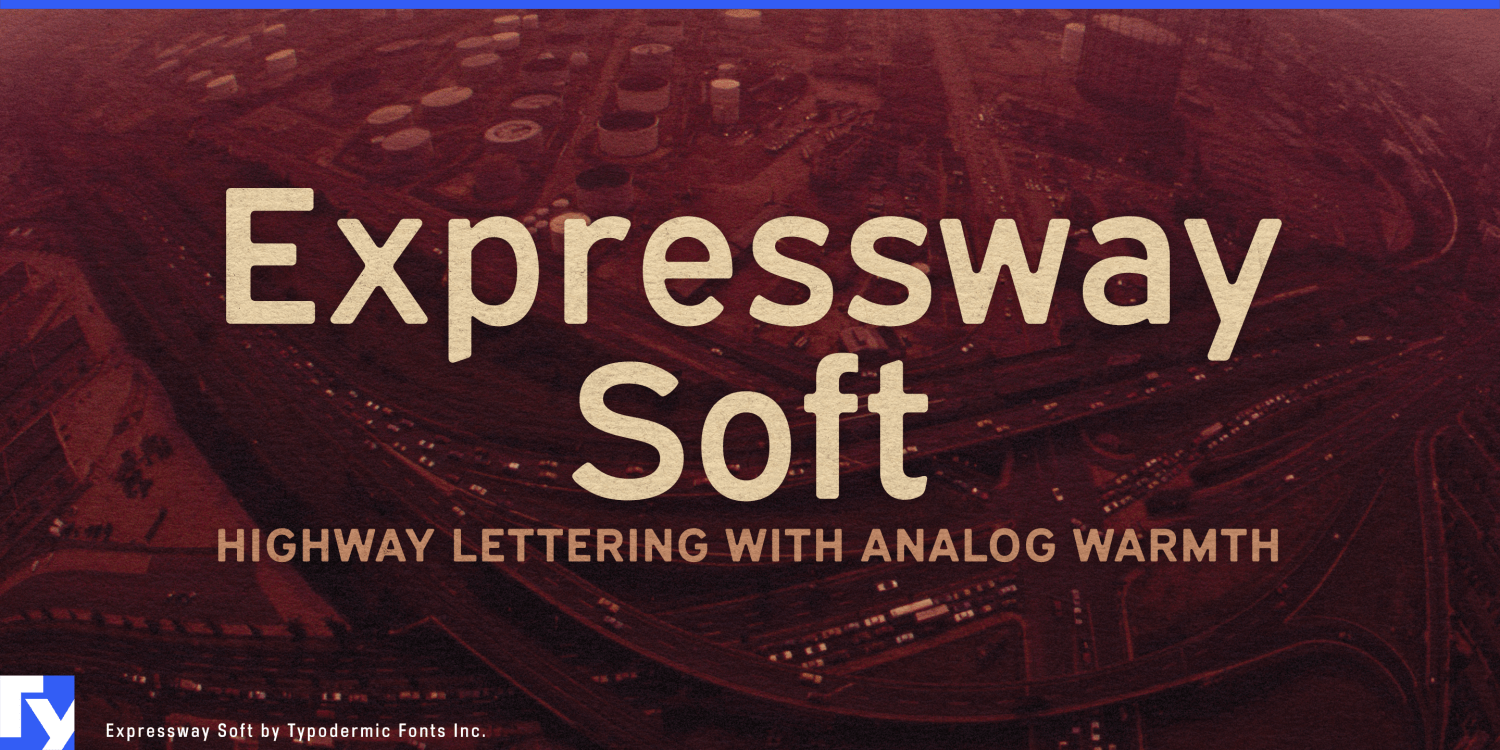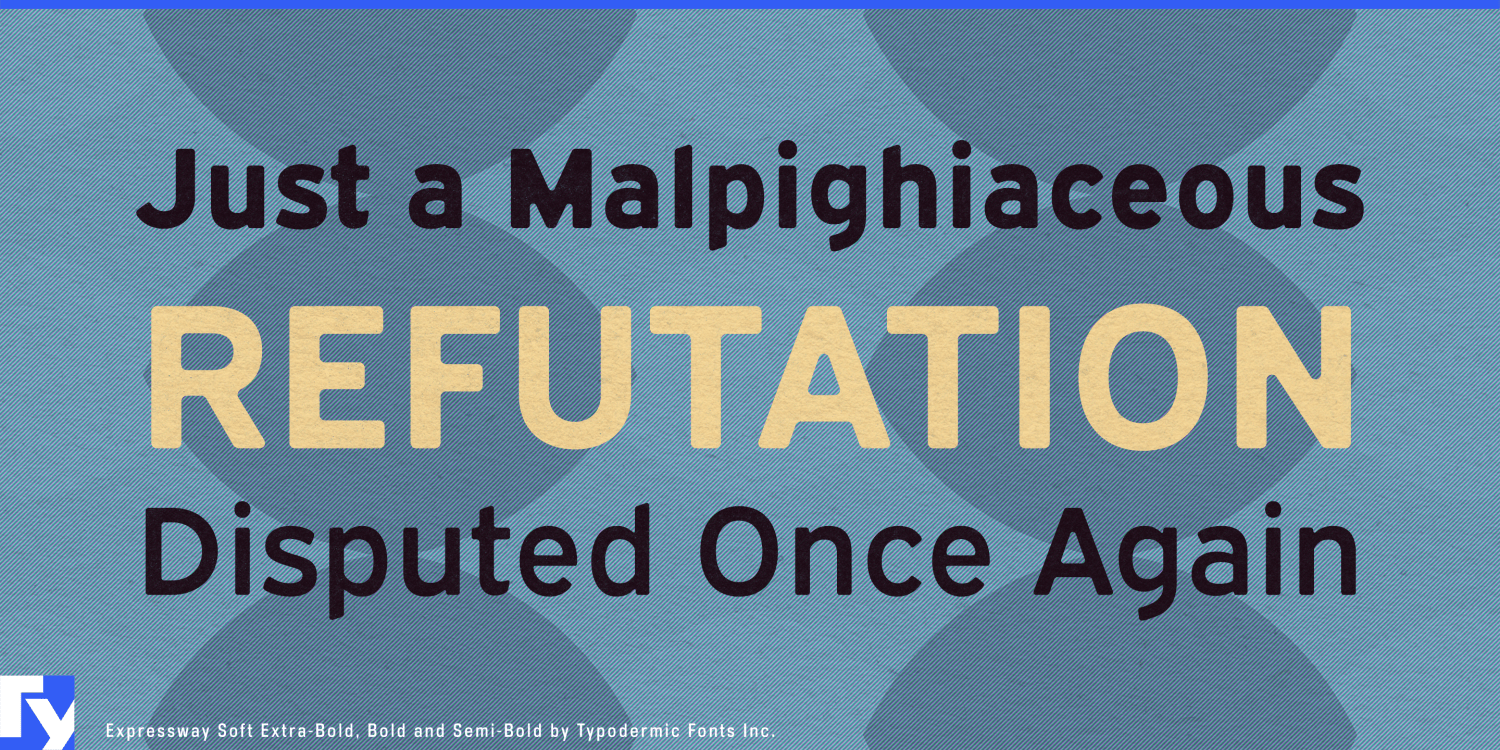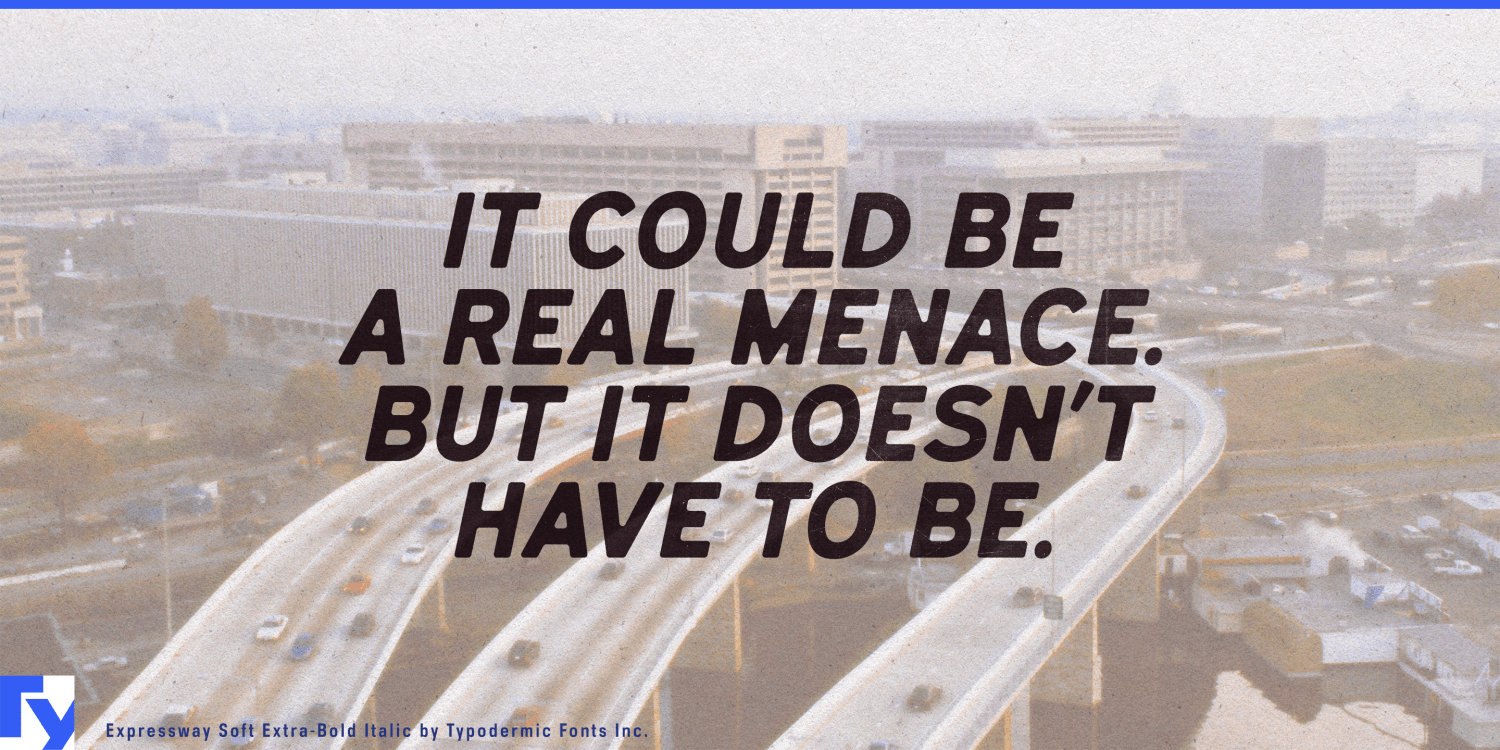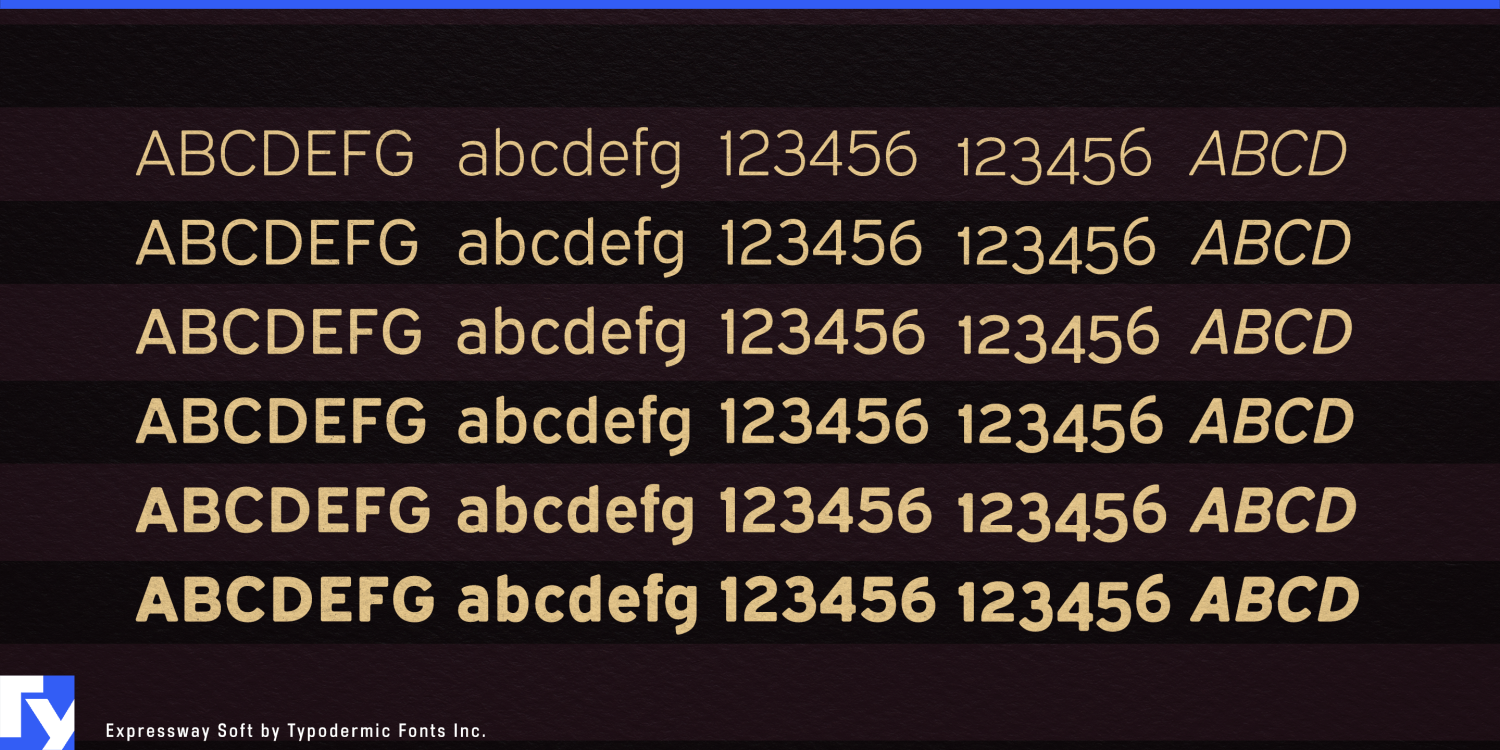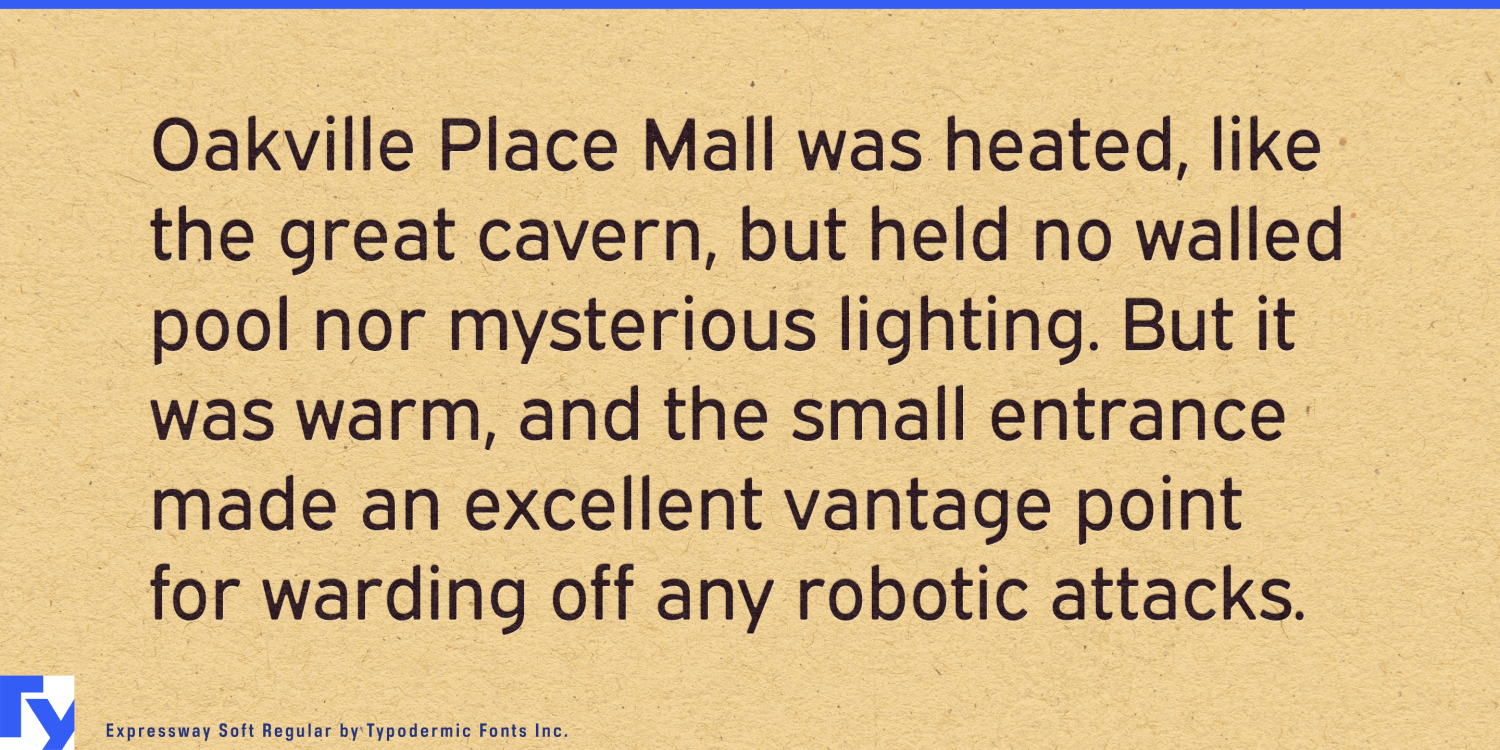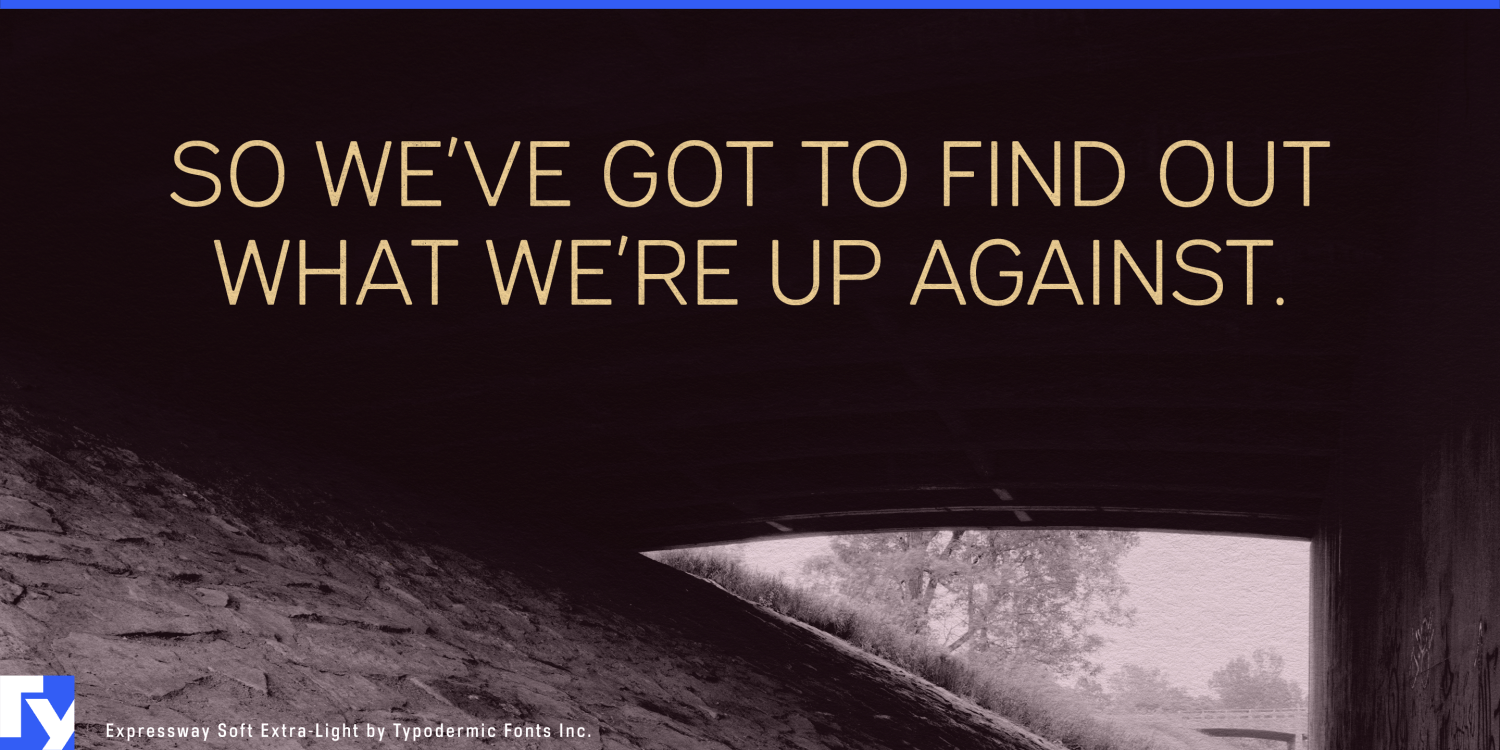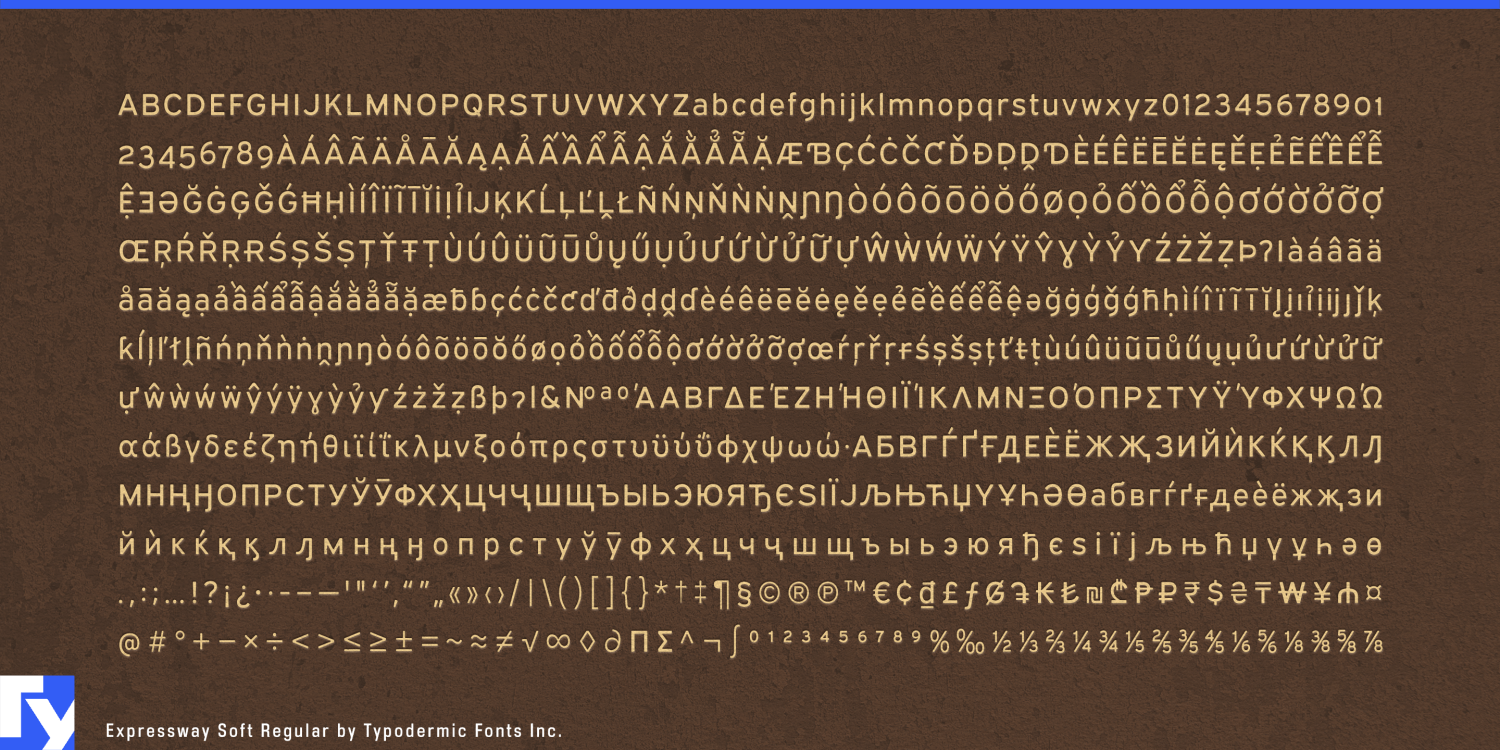
Expressway Soft
Font Family by Typodermic
Expressway Soft takes the transportation vocabulary of lettering familiar from interstate highway signs and rounds the corners, carrying it into the public-facing side of contemporary mobility. The underlying forms remain direct and road-derived, but the softened construction reduces some of the institutional severity associated with highway signage. In the lighter styles the effect is restrained; as the letters get heavier, the rounding becomes increasingly visible and gives the broad strokes a distinctly cushioned finish.
That balance makes Expressway Soft useful for transportation systems that have to move between infrastructure and customer experience. An EV charging network might need roadside pylons, charger numbers, bay identifiers, rate displays, payment screens, membership plans, mobile interfaces, and account dashboards to feel like parts of the same system. Expressway Soft retains a connection to roads and vehicles without making every customer-facing element look like an official traffic sign.
Car-share and rental services, bike and scooter networks, autonomous neighborhood shuttles, roadside-assistance platforms, and other mobility services face similar design problems. Route names, station identifiers, vehicle classes, reservation screens, trip summaries, dock numbers, and service-status messages all need recognizable hierarchy across signs and software.
Parking is another particularly natural setting. Airport garages, hospital campuses, shopping centers, stadium districts, office developments, and smart-city parking networks combine road signs with pedestrian directions, payment kiosks, reservation apps, availability displays, level identifiers, zone numbers, tariffs, and license-plate screens. Expressway Soft can move from an entrance pylon to a payment interface without abandoning the visual language of transportation.
Passenger facilities extend that territory further. Airport ground-transport areas, park-and-ride systems, ferry terminals, commuter hubs, shuttle networks, and large transit interchanges need typography for pickup zones, gates, route maps, ticketing screens, waiting areas, service notices, and short instructions. Support for Latin-based languages, Greek, and Cyrillic makes the family useful when the same visual system has to operate across several regions or passenger groups.
The softer treatment can also work in large institutional environments with road networks of their own. Hospitals, universities, research parks, convention centers, and corporate campuses often combine parking structures, shuttle routes, building identifiers, drop-off zones, maps, digital directories, and pedestrian wayfinding.
Expressway Soft is closely related to Expressway, but the distinction is more useful than a simple choice between sharp and rounded corners. Expressway naturally suits the harder infrastructure layer; Expressway Soft shifts the same road-derived language toward charging, parking, passenger services, mobility apps, and the points where transportation systems meet the people using them.